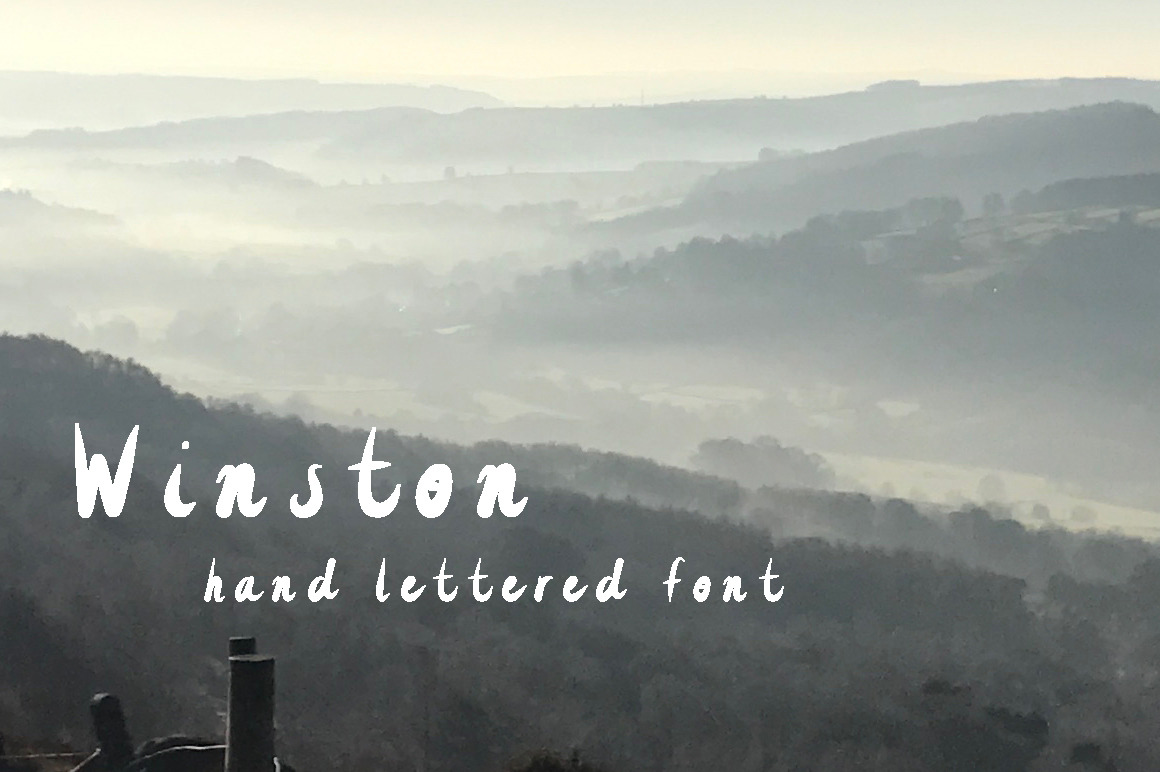
Winston - hand lettered font
Winston is a hand-lettered font which is meant to be a bit fun and whimsical for use in your projects.
This font works well for blog headers, social graphics, and posters.